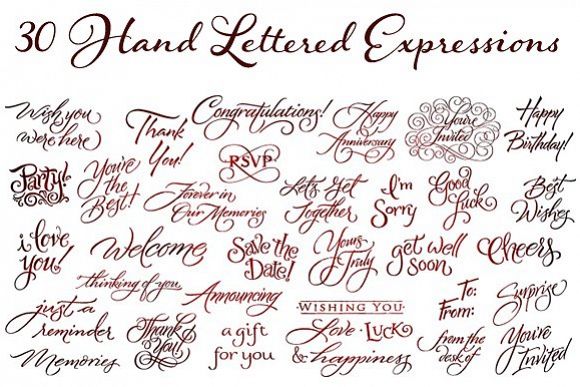
Greeting Cards contains over 30 hand-lettered expressions with so many uses! Express yourself in style! Most of these versatile expressions are designed with thoughtful spacing, so if the greeting has more than one word, there is both a version with all of the words on one line and an alternate version with the words on two or more lines. As a special bonus, a folder with transparent GIFs of all expressions have been included making it even easier to add to your emails or publications.